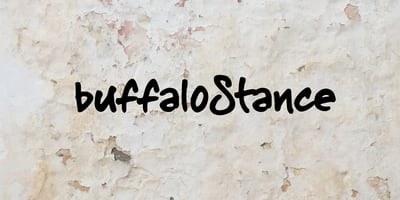
The BuffaloStance Font is an excellent choice for designs that demand a rugged, authentic, and often Americana-inspired aesthetic. Imagine it gracing the branding for vintage-style clothing lines, adding a handcrafted, sturdy feel to labels for artisan coffee or craft beverages, or bringing a distinctive character to outdoor adventure gear. It's also perfectly suited for captivating event posters for music festivals, unique signage for independent businesses, and any project where you want to evoke a sense of heritage, durability, and a classic, adventurous spirit. With its strong, often textured or hand-drawn appearance, the BuffaloStance Font is ideal for projects that aim for visual impact and a memorable impression.
What makes the BuffaloStance Font truly exciting is its ability to instantly transport viewers to a place of authenticity and timeless appeal. It embodies a spirit of adventure and craftsmanship, making your designs feel grounded and genuine. This font often features unique imperfections or a weathered look that adds depth and personality, setting it apart from more polished typefaces. It's perfect for establishing a brand identity that feels established, trustworthy, and creatively inspired, ensuring your message is not just seen, but felt on a visceral level. The BuffaloStance Font Free Download offers a fantastic opportunity to infuse your projects with this distinctive character.
The BuffaloStance Font family is typically designed to offer versatility while maintaining its signature rugged and authentic style. While specific family members can vary, you can often expect to find:
• BuffaloStance Regular
• BuffaloStance Bold (for added emphasis and powerful headlines)
• BuffaloStance Textured (or Distressed, for an authentic worn-out look)
• BuffaloStance Outline (for a unique display effect)
• BuffaloStance Condensed (for narrower applications)
• BuffaloStance Script (if it includes a complementary handwritten or brush script style for versatile pairing)
These variations provide flexibility for different design applications, allowing you to create engaging visual hierarchies and maintain a consistent, powerful aesthetic across all your projects.